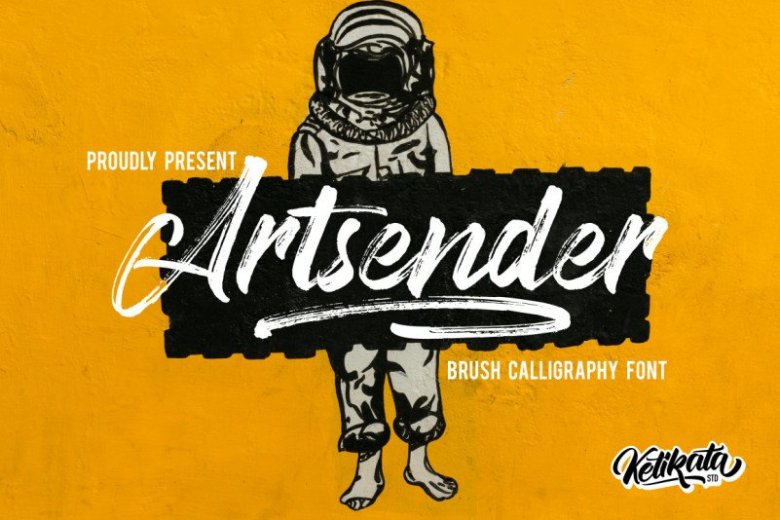
Artsender Brush Font
This free font package is a modern brush font. with natural rough dry brush strokes, and the stroke of hand quickly. You can use and enjoy, for promotional material and anything. Introducing Artsender Font. Brush calligraphy font with one natural scratch. looks original and can be used for each of your projects with certain concepts. impatiently looking forward to Artsender a giving touch and perfecting your design project. such as Event poster, social media posts, promotional material, quotes, flyers, packaging, or logos for branding and others.